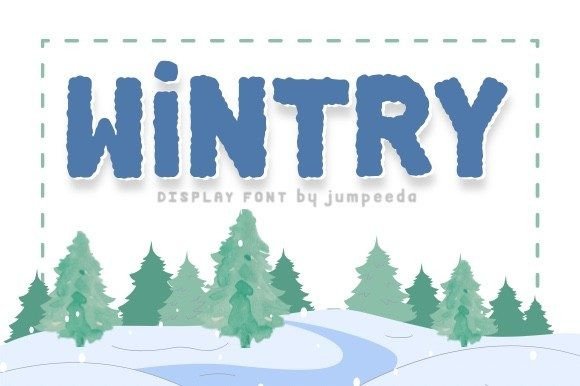
In a world of mundane fonts, "Wintry" emerges as a captivating creation, a testament to the artistry of JumpeedaCrafts. This display font is not just a collection of letters; it's a whimsical journey into the heart of winter, where imagination dances like snowflakes on a gentle breeze.
Picture this: a crisp winter morning, the world blanketed in a pristine layer of snow, the sun painting the landscape in hues of gold and pink. The letters of "Wintry" embody this enchanting spectacle, their edges adorned with a delicate frost, their curves reminiscent of snowmen's smiles.
With "Wintry," you can effortlessly evoke the magic of winter in your designs. Its playful spirit dances across the page, inviting your audience to embark on a heartwarming adventure. Whether you're crafting a Santa letter, designing winter-themed invitations, or creating whimsical social media posts, "Wintry" will transform your words into enchanting works of art.
This font is not merely a tool; it's an emotion, a celebration of the season's charm. Its versatility knows no bounds, allowing you to infuse a touch of winter magic into any project. Let "Wintry" be your creative companion, guiding you through a wonderland of design possibilities.
Imagine the delight on a child's face as they receive a Santa letter penned in "Wintry's" enchanting script. Its playful personality adds a tangible layer of excitement to the holiday season, making memories that will last a lifetime.
Or envision the warmth and joy that radiates from a winter-themed invitation adorned with "Wintry's" whimsical touch. Its intricate details and playful spirit set the tone for a gathering filled with laughter, love, and the magic of the season.
With "Wintry," you have the power to transform the ordinary into the extraordinary. Each letter is a blank canvas awaiting your creative touch, ready to weave tales of enchantment and wonder. Embrace the magic of winter and let "Wintry" ignite your imagination.